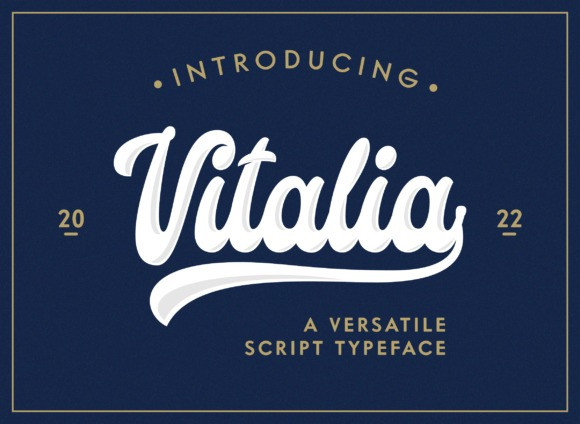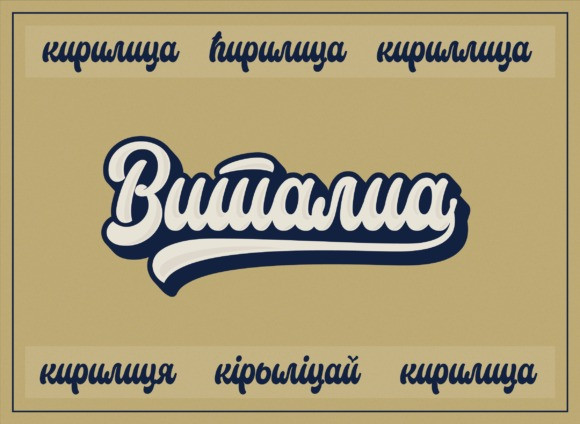
Vitalia Font
Vitalia is a retro and bold handwritten font. It is perfect for product packaging, branding project, magazine covers, social media, wedding, or just used to express words above the background.